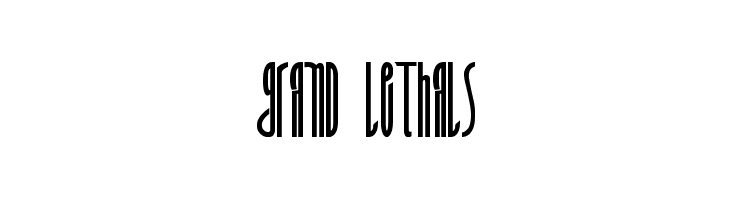
( Marty Bampton )
A tall, narrow font with high contrast and angular serifs, perfect for dramatic designs.
( Projeto Tipo da Fonte - Eduardo Novais - tipodafonte.wordpress.com )
A sophisticated serif font with tall, narrow letterforms and high contrast strokes.
( RaseOne Full Time Artists - www.graffitifonts.com )
A bold, angular font with a futuristic and chiseled design.
( Roman Paslavskiy - creativemarket.com/seveniwe )
A rugged, distressed font with a vintage, weathered look.
( Ryan Williamson )
A thin, elegant serif font with high contrast and refined details.
( Solidtype - bit.ly/2OxZn2V )
An elegant, flowing script font with high contrast and intricate letterforms.
( Sughayer Foundry - Amin Sughayer )
Ornate Arabic calligraphic style with dense, decorative detailing.
( Syahputra - creativemarket.com/Bexxtype )
An elegant script font with flowing, cursive letters and high contrast.
( TheReconLegend - Esteban Muñoz )
A bold, classic serif font with high contrast and elegant curves.
( Twicolabs Fontdation - Fahrizal Tawakkal - fontdation.com )
A bold, italic font with elongated, condensed letterforms and sharp serifs.